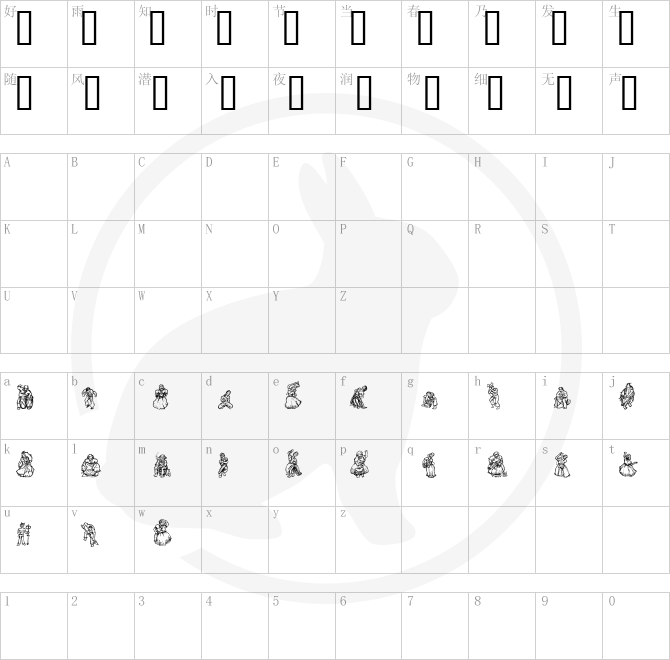
macumbats.ttf is a very beautiful artistic font, macumbats.ttf is widely used in the design and printing of various books and pictures,macumbats.ttf has a strong visual impact,macumbats.ttf is a commonly used font in newspapers, magazines and books, and is used in posters, e-commerce Poster design, store design, logo design, font design and other fields.macumbats.